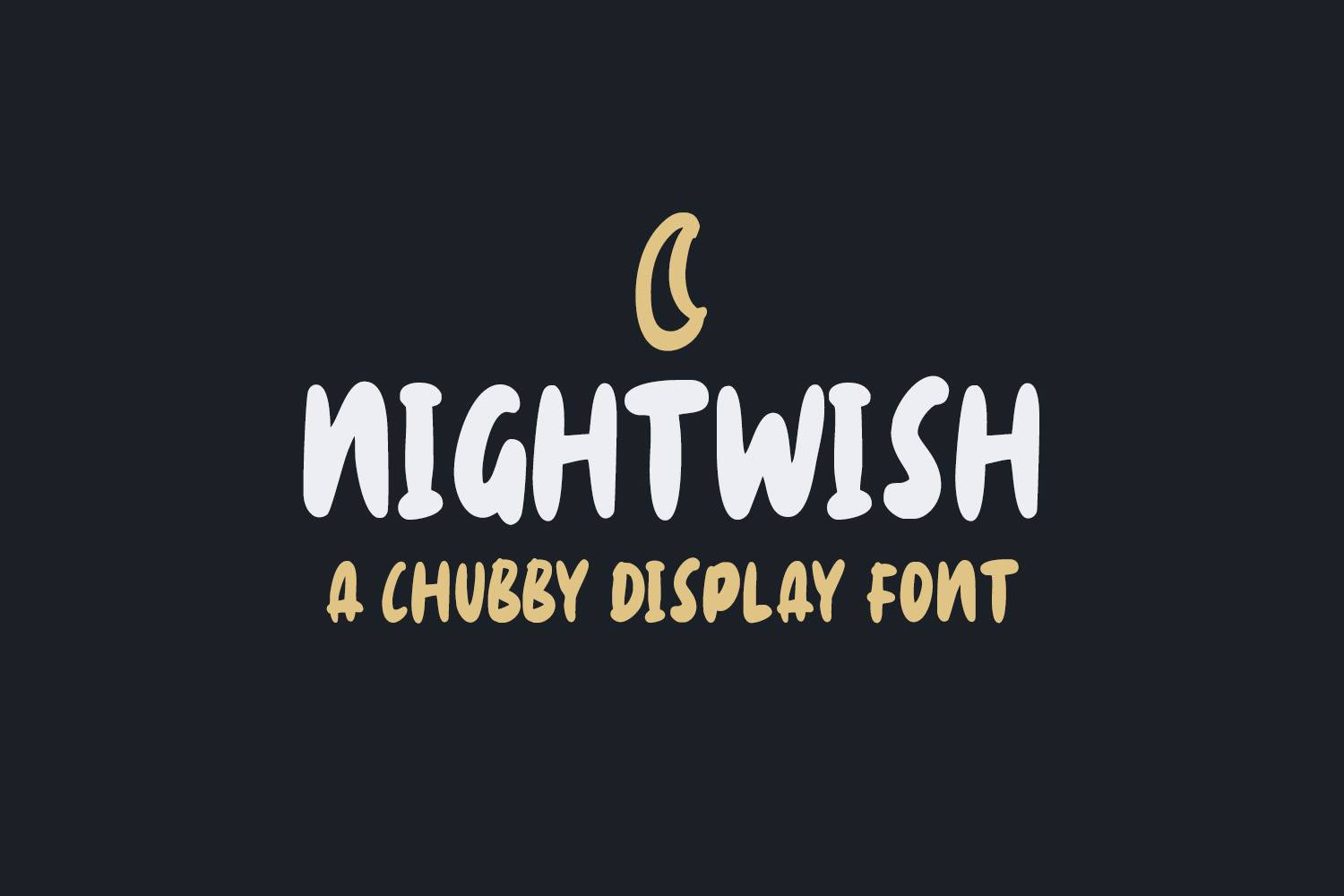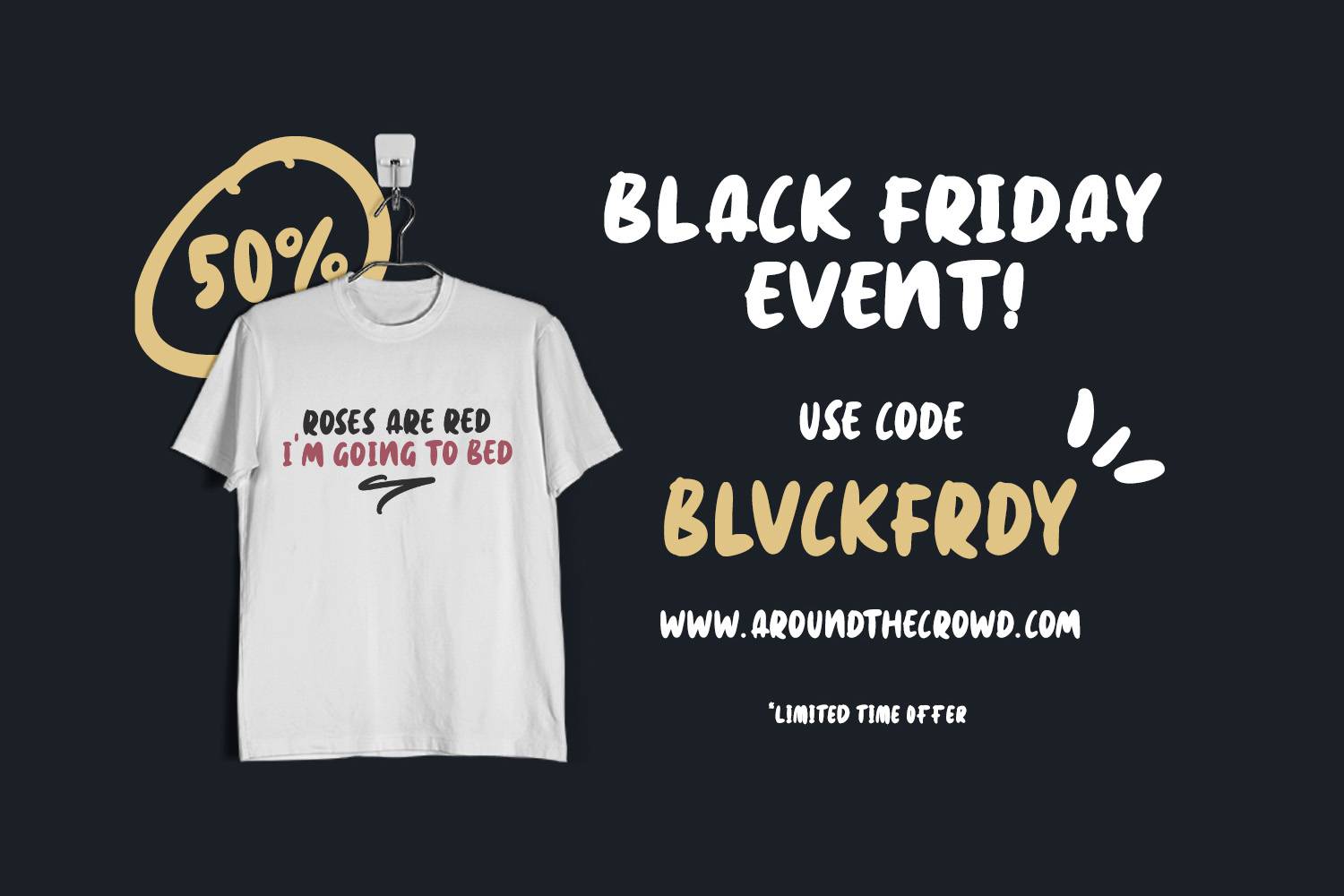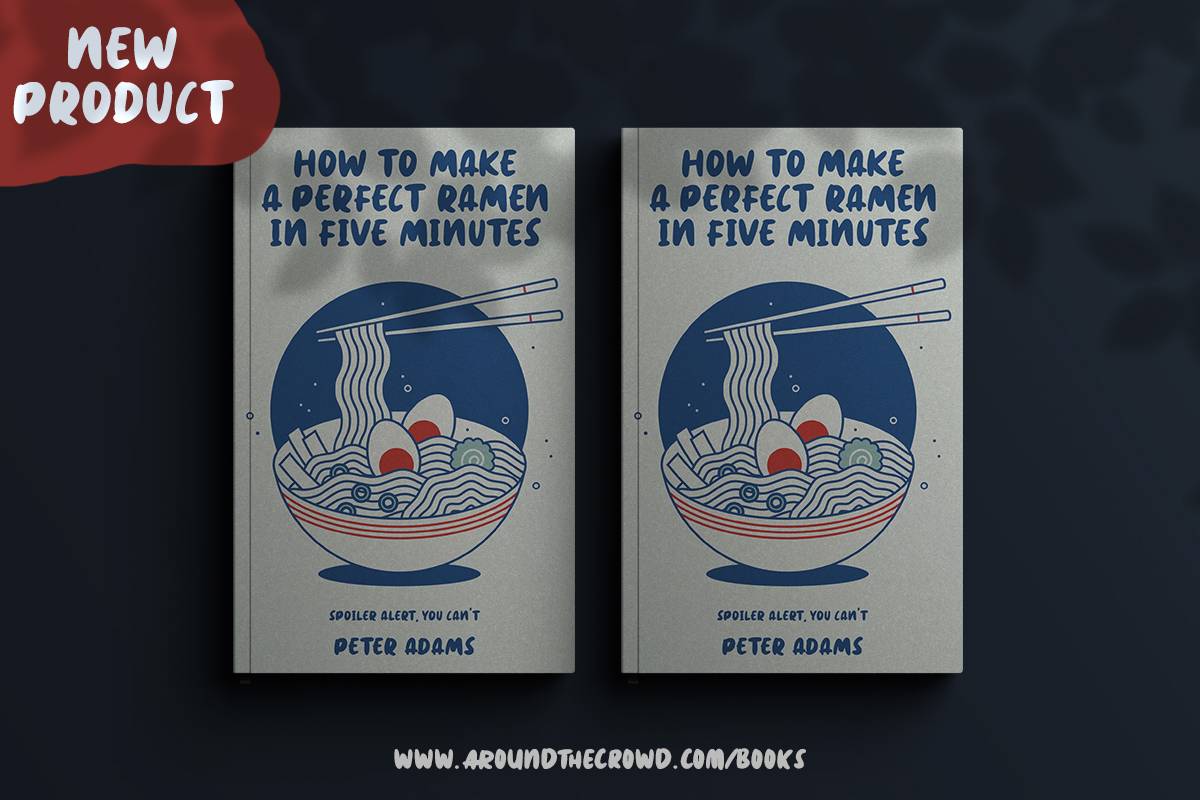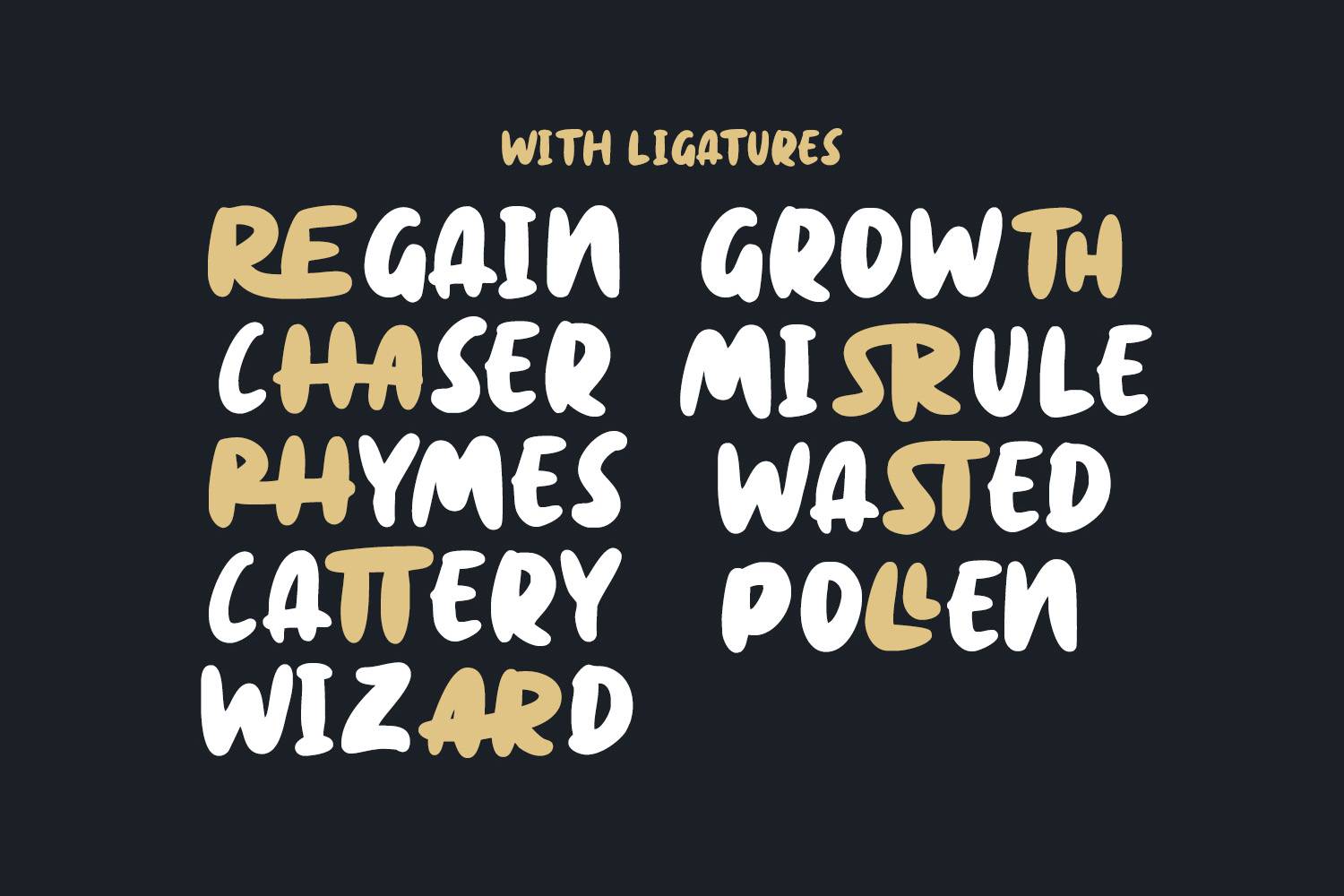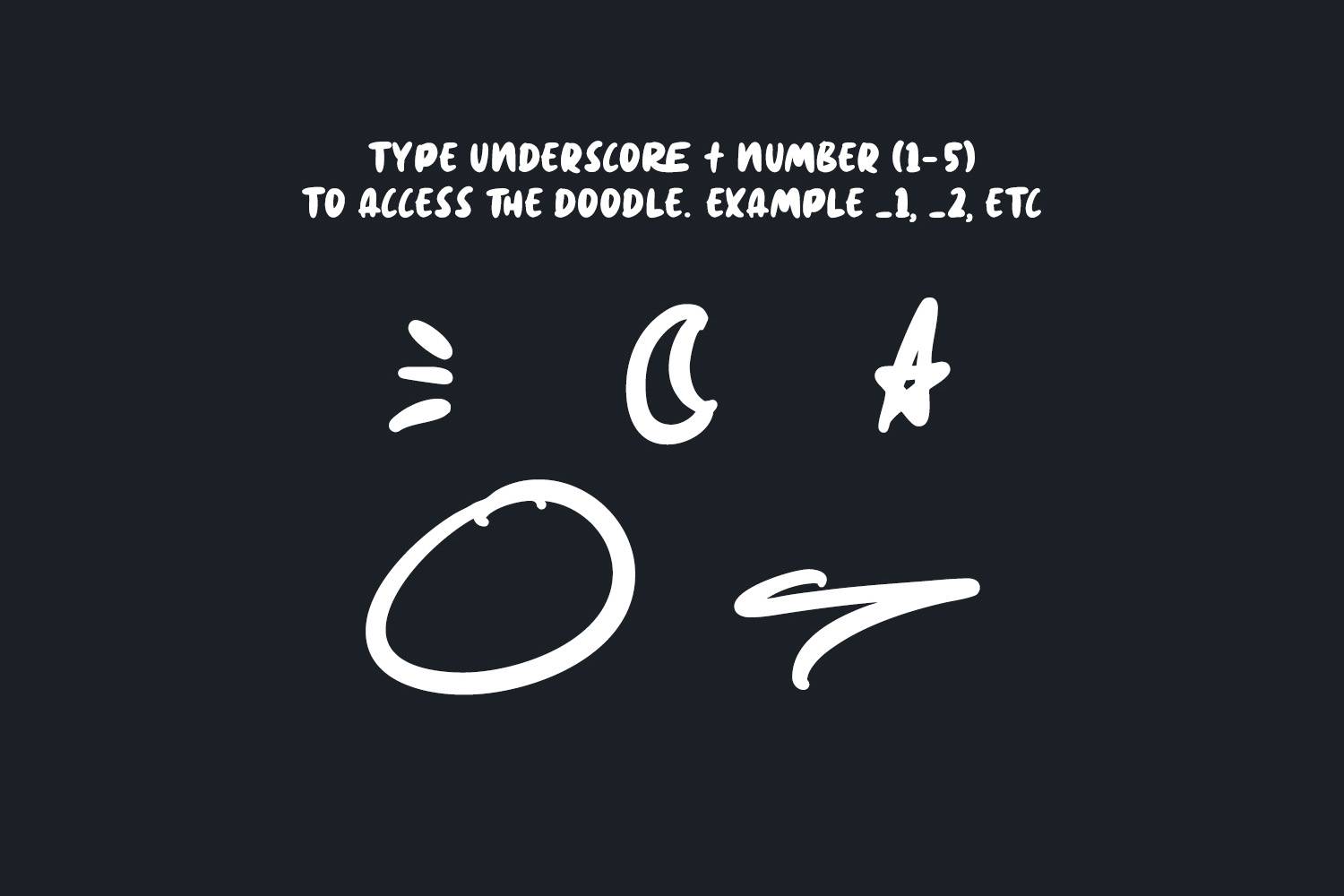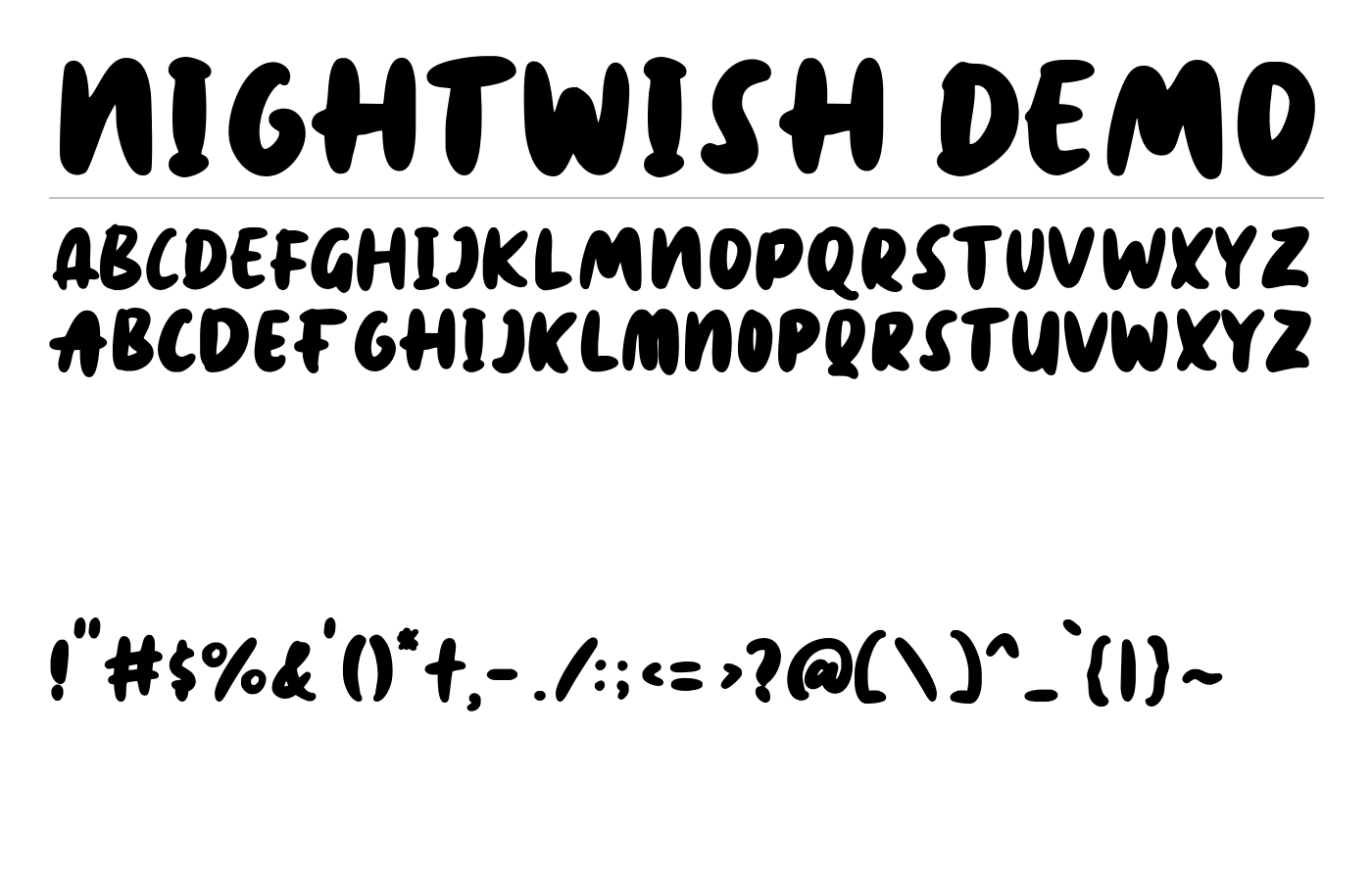
Nightwish is a bold, playful handwritten sans serif font that features thick, rounded strokes and slightly irregular shapes, giving it a friendly and casual feel. Its lively letterforms and ample spacing make it perfect for creative projects, children’s designs, or any context seeking an informal, approachable touch. This font works well in headlines, logos, and packaging where a fun and energetic vibe is desired.
Nightwish Font
About Nightwish Font
| Font family | Nightwish Font |
| Designer | Gustian Agung Asprilla |